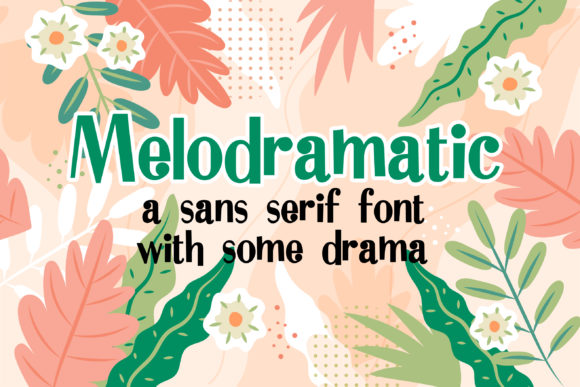
Melodramatic Font
Welcome to the world of Melodramatic Font, a captivating sans serif creation by Illustration Ink. This extraordinary font is designed to ignite your imagination and transform your creative endeavors into unforgettable experiences.
Melodramatic Font is not merely a collection of letters; it's a gateway to a realm of endless possibilities. Its unique blend of sharp edges and playful curves adds a touch of intrigue to every word, making your messages stand out from the crowd.
Imagine the impact your designs will have when infused with the allure of Melodramatic Font. Its sleek lines and subtle flourishes will captivate your audience, drawing them into the depths of your words. Whether you're crafting stunning logos, eye-catching posters, or captivating social media posts, Melodramatic Font will elevate your creations to new heights of sophistication.
But beyond its aesthetic appeal, Melodramatic Font also possesses a remarkable versatility that empowers you to express a wide range of emotions and convey your messages with precision. Its clean and modern style lends itself perfectly to contemporary designs, while its subtle hint of playfulness adds a touch of whimsy that will charm and delight your readers.
So why settle for ordinary fonts when you can embrace the extraordinary? Choose Melodramatic Font and watch your words transform into works of art. Let its captivating allure ignite your creativity and inspire you to create designs that leave a lasting impression.
The possibilities are endless with Melodramatic Font. Dive into its enchanting world and discover the power of captivating typography today!